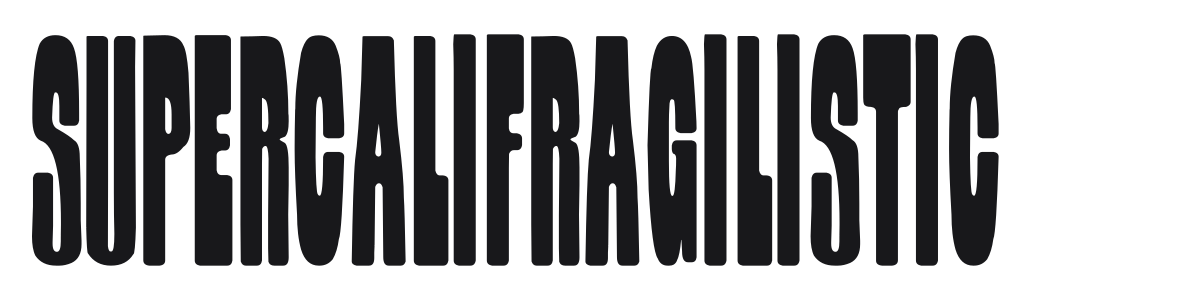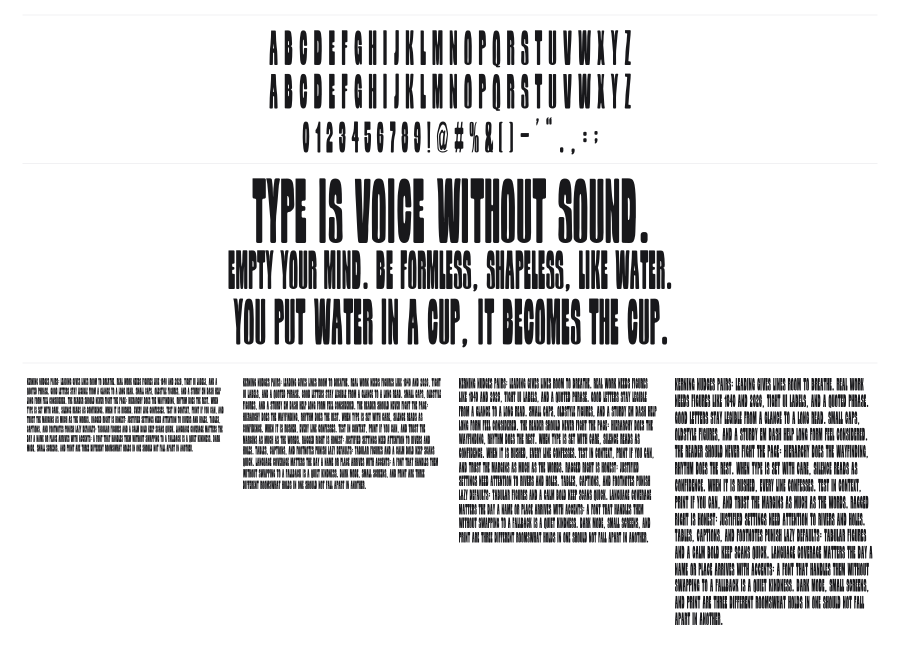
Supercalifragilistic
Supercalifragilistic is an ultra-condensed heavy display sans from Spanish designer Woodcutter, built on the proportions of classic wood-type poster faces. The tight stacking of thick strokes is broken up by notched cutouts at intersections, adding a handcrafted, printed quality that keeps it from feeling mechanical. It hits hard at large sizes and suits anything that needs raw visual weight.